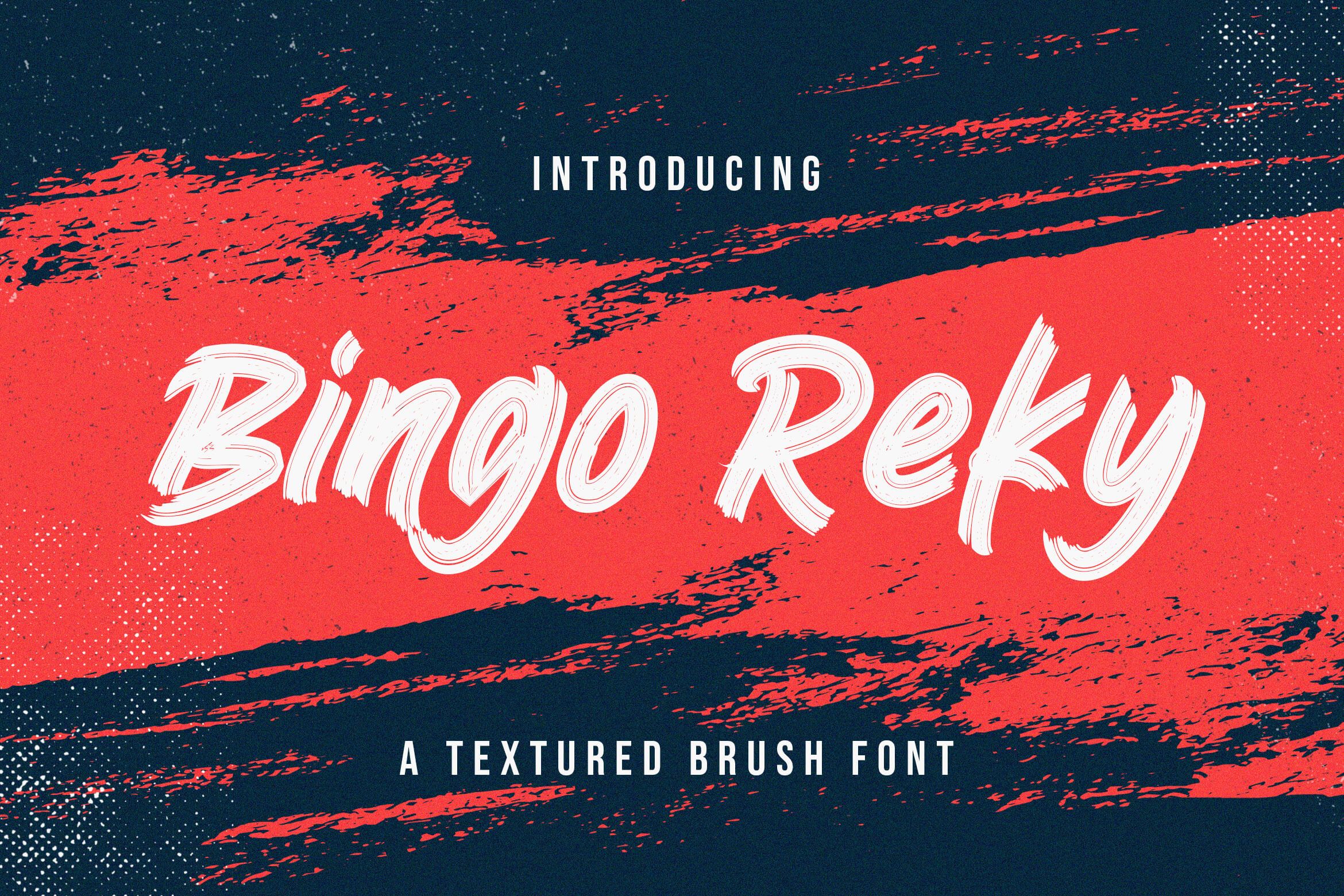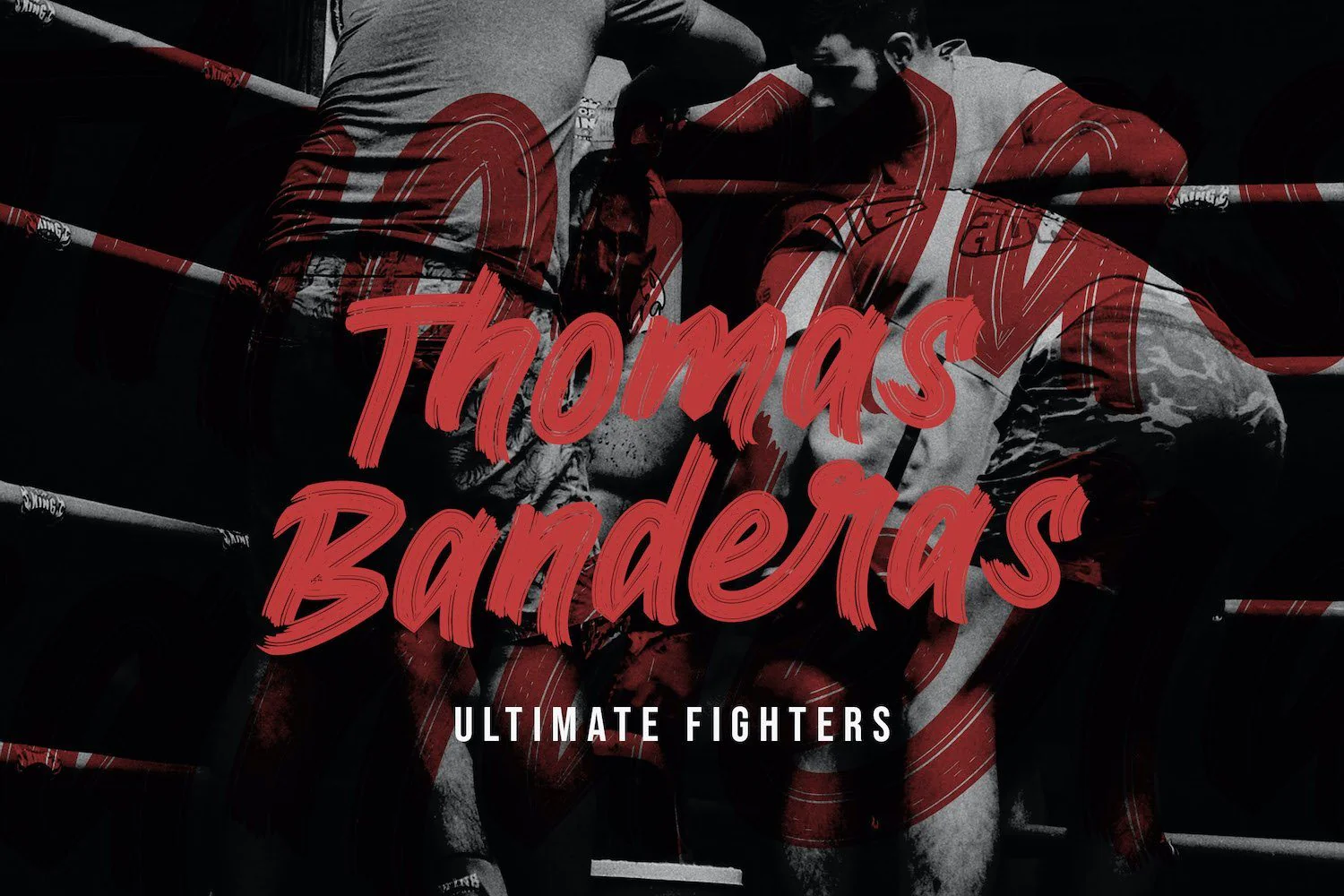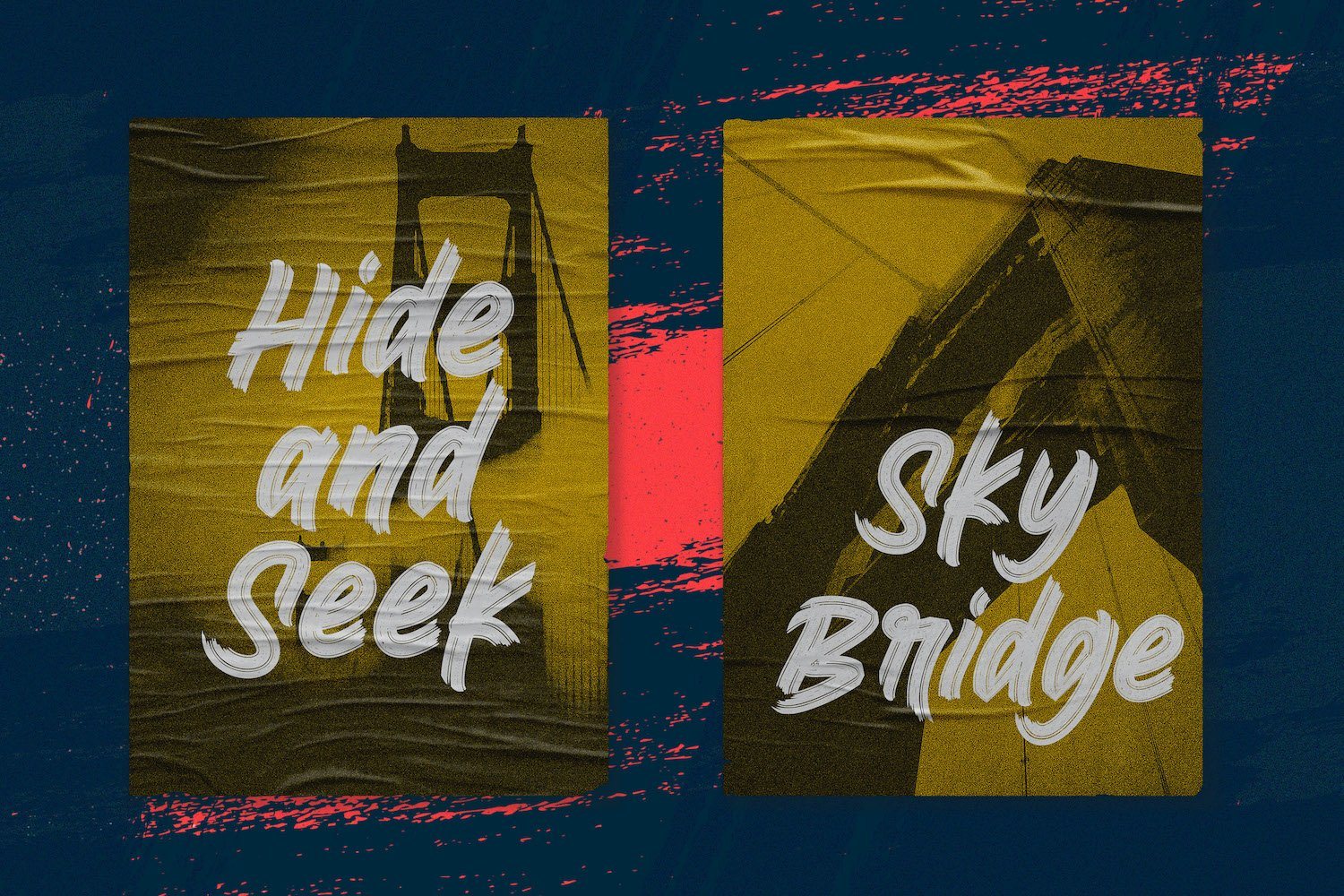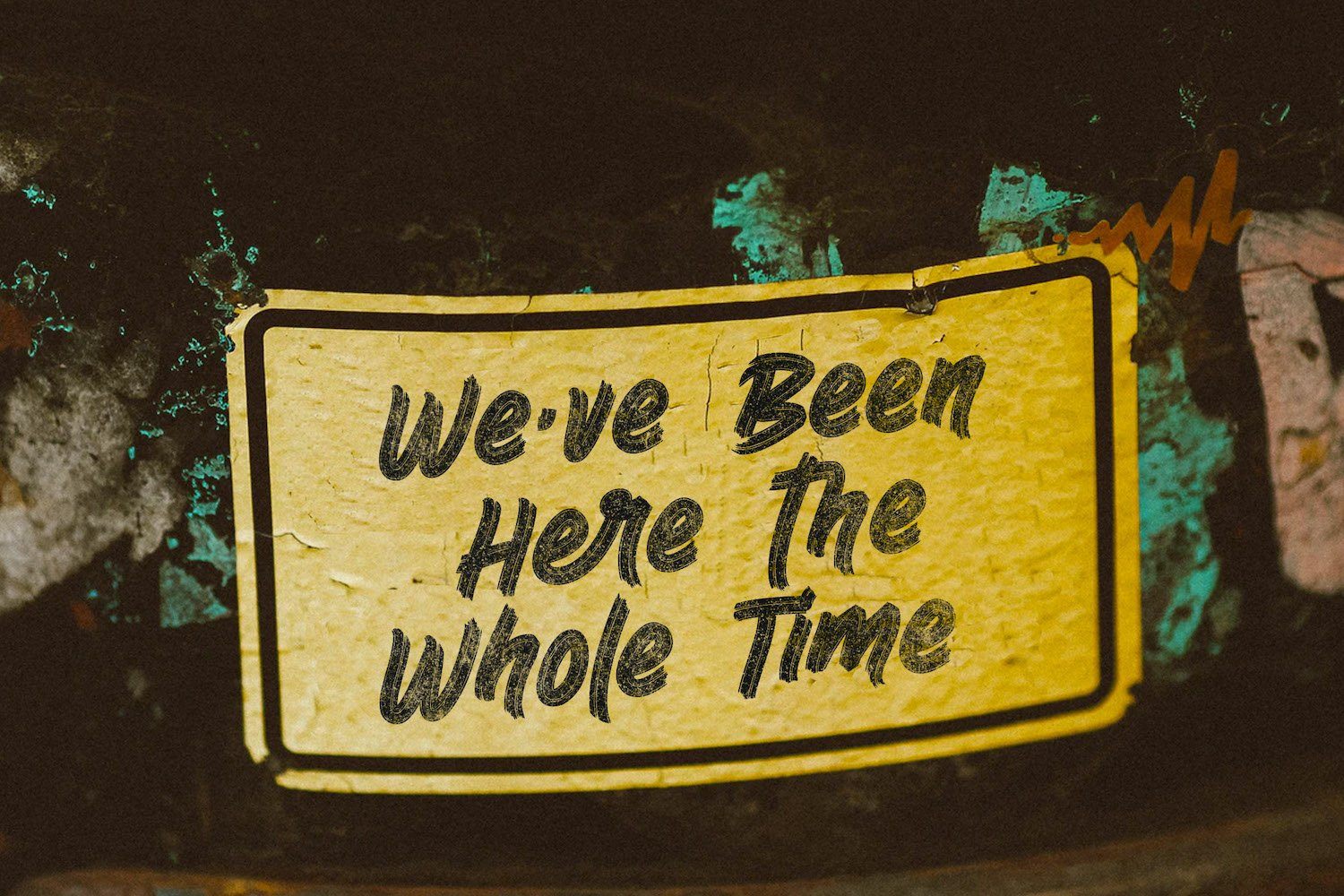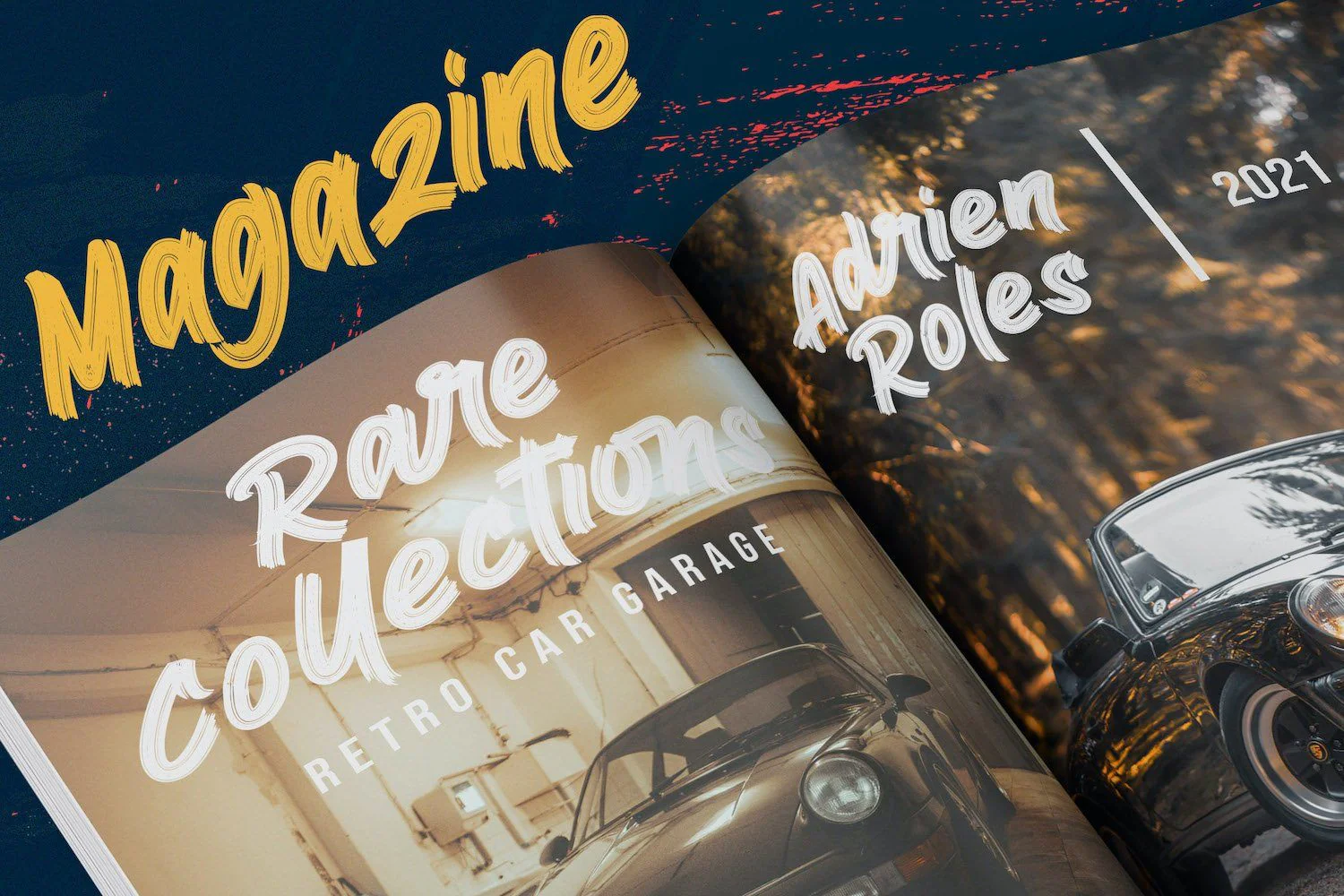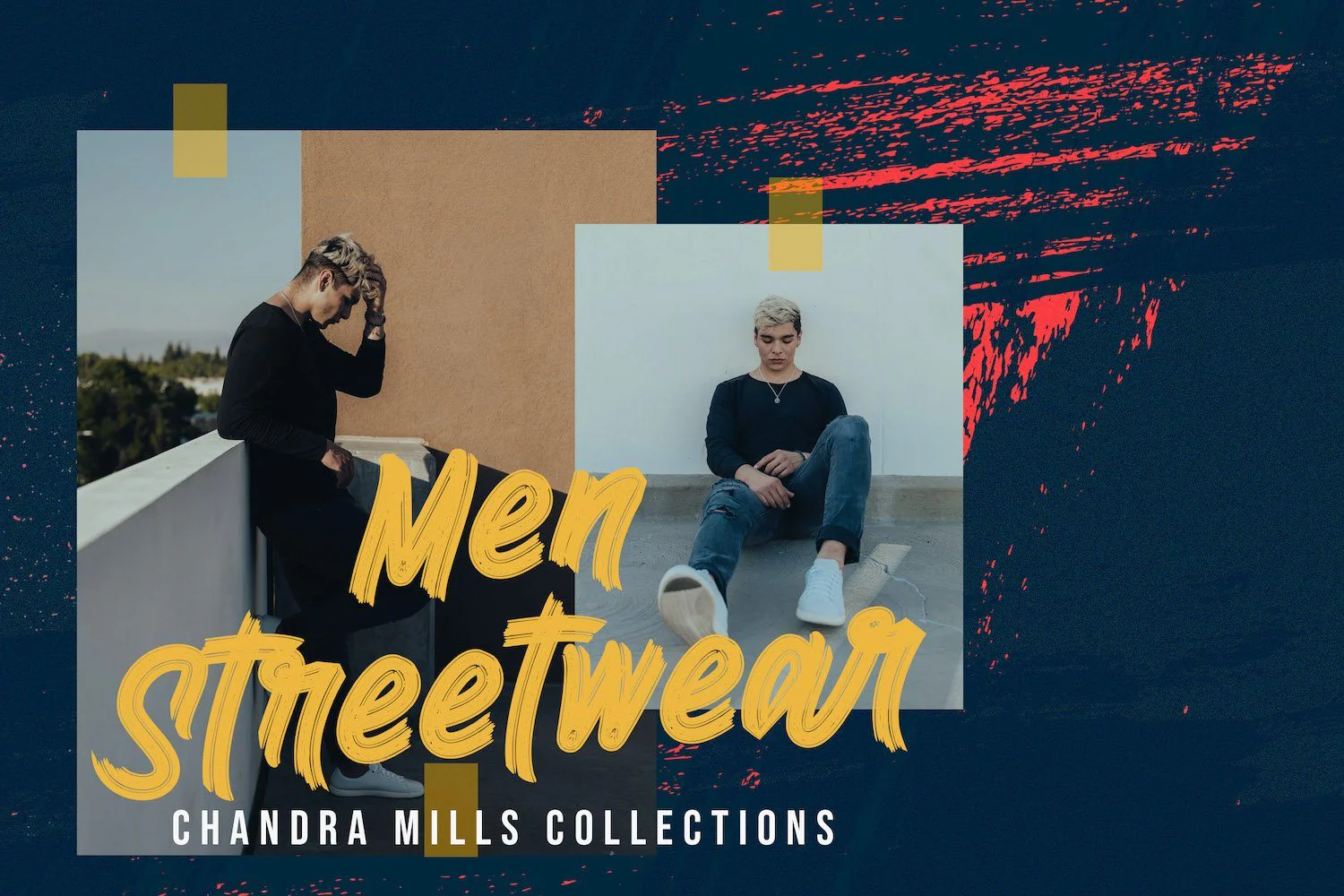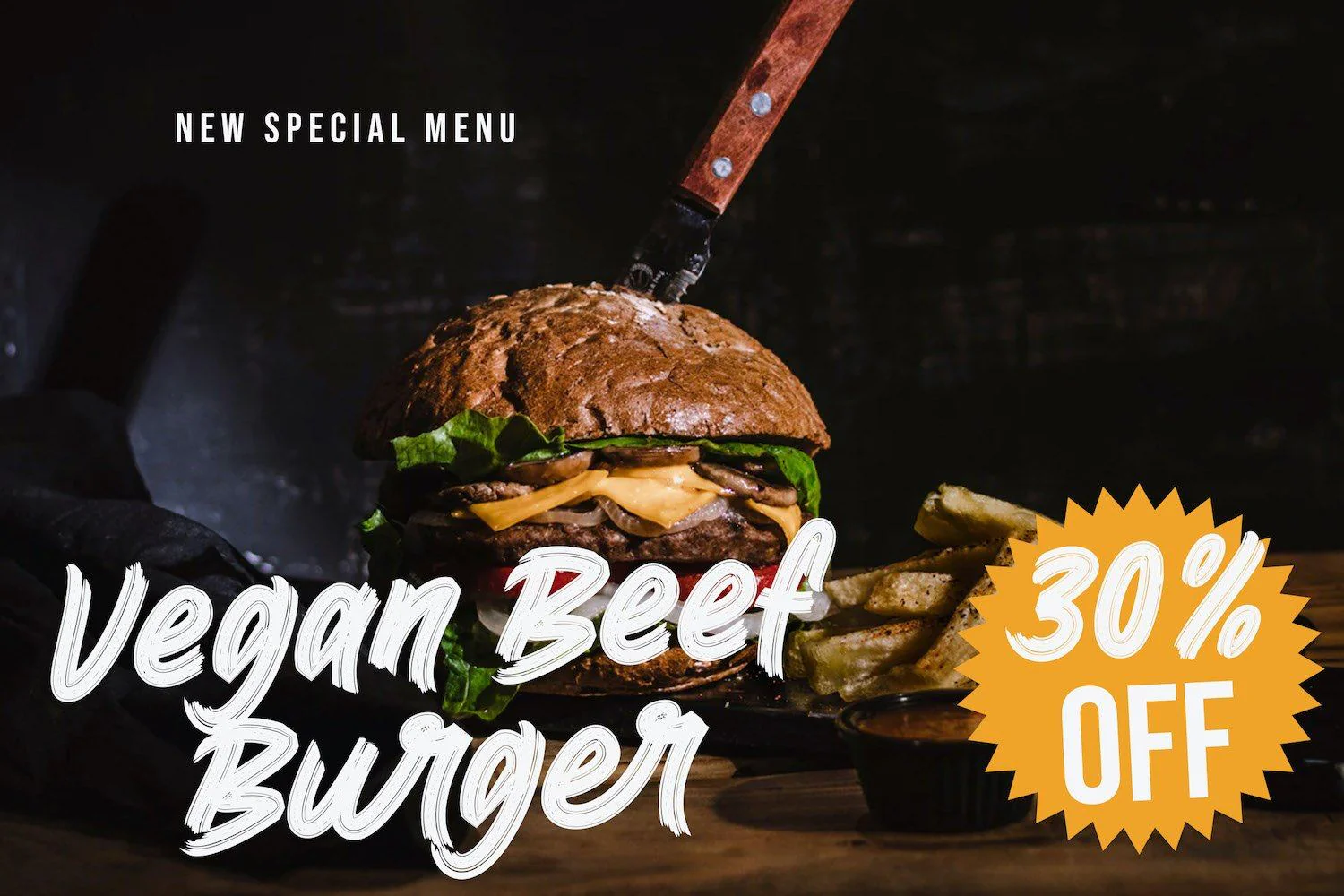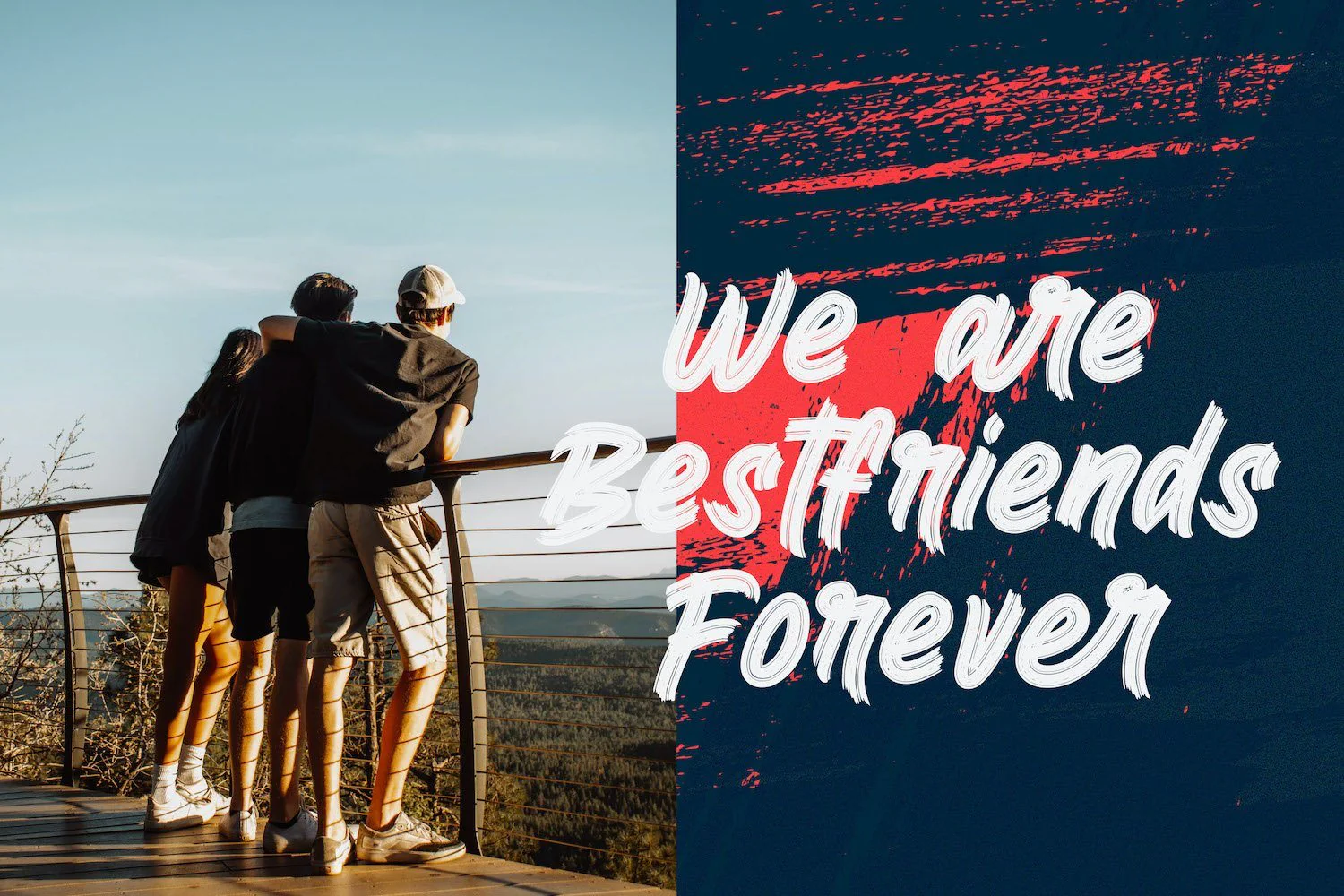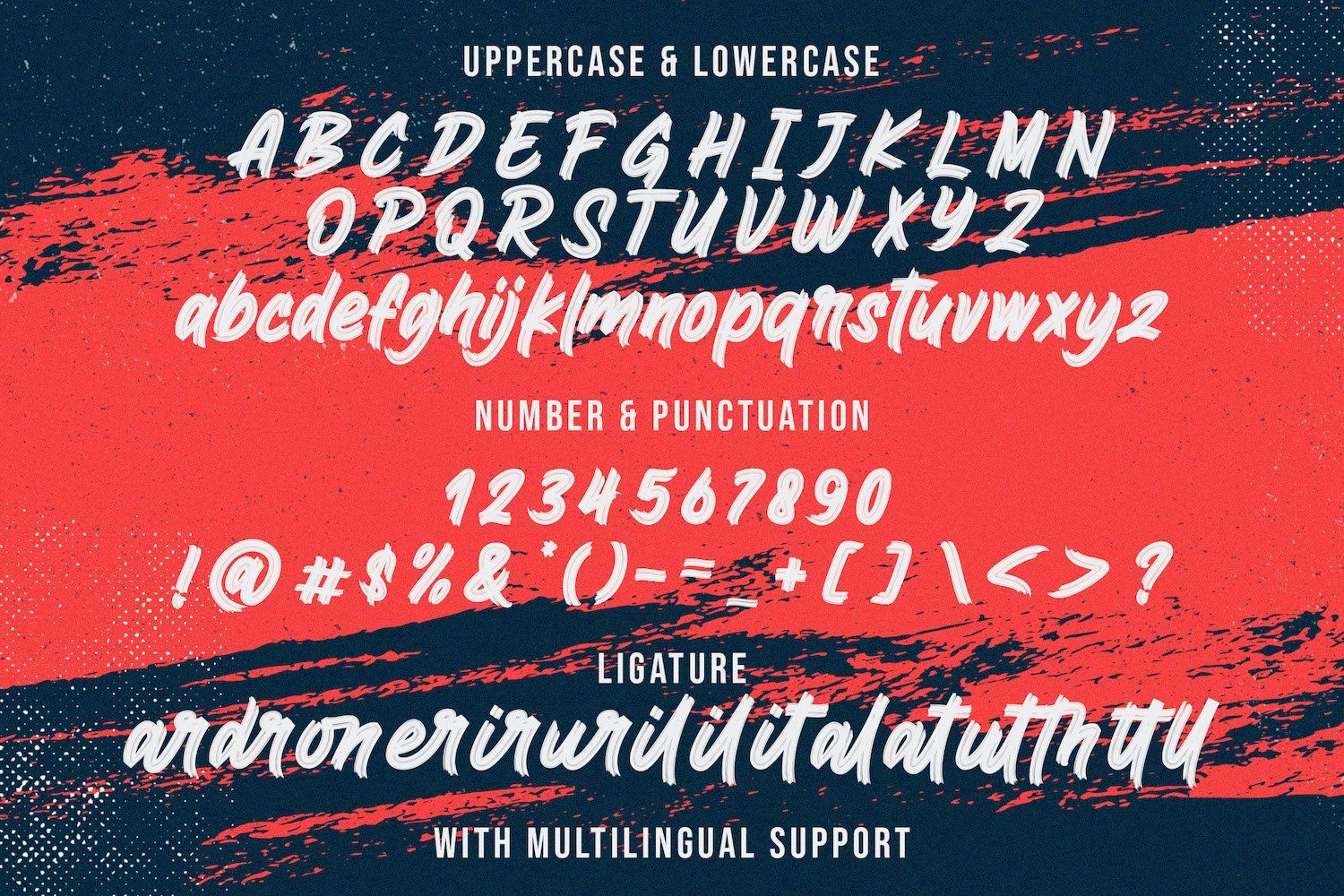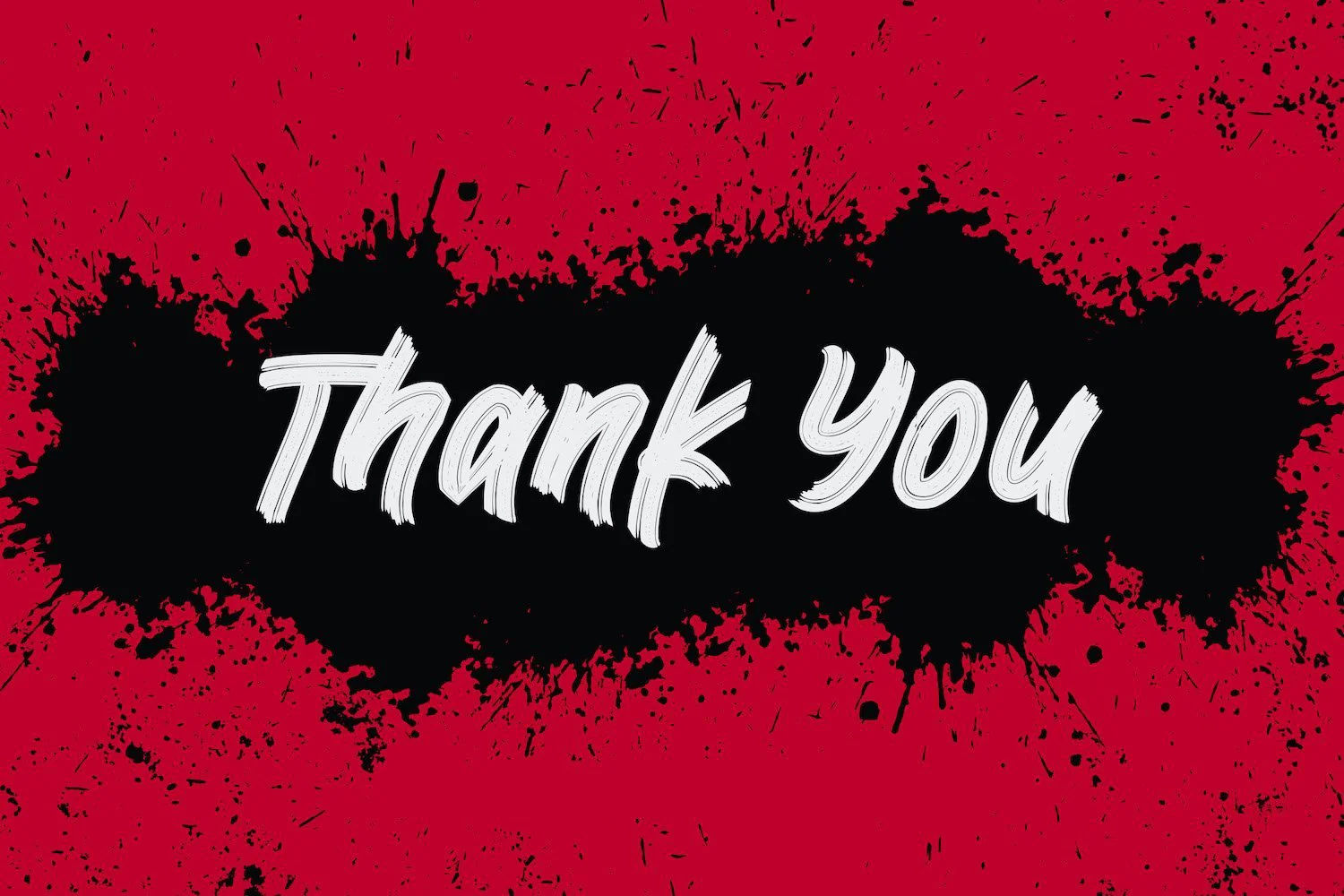
Bingo Reky - Textured Brush Font
Introducing Bingo Reky - Textured Brush Font
Bingo Reky is a textured handbrush font. Get inspired by its unique and beautiful style and add it to your favorite designs!
Introducing Bingo Reky - Textured Brush Font
Bingo Reky is a textured handbrush font. Get inspired by its unique and beautiful style and add it to your favorite designs!